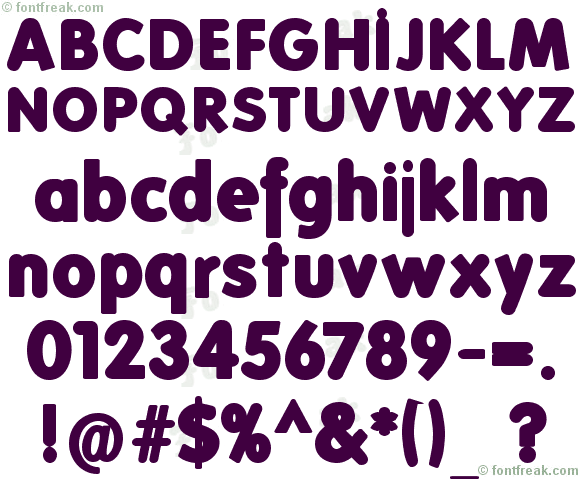
FolksBlack
About FolksBlack
FolksBlack, designed by Manfred Klein, is a striking display font that falls under the decorative category. This font showcases a bold and playful style, characterized by its thick stroke weight and rounded edges, giving it a friendly and approachable appearance. The even spacing between letters contributes to its legibility, making it an ideal choice for various design projects. The unique visual characteristics of FolksBlack, combined with its vibrant personality, make it particularly appealing for creative uses.
This font is well-suited for a range of applications, including eye-catching wedding invitations that require a touch of charm, engaging movie posters that need to convey excitement, and lively restaurant menus that draw customers in. Additionally, FolksBlack can enhance branding for small businesses seeking to establish a fun and inviting identity. Graphic designers and content creators will find this font versatile, allowing for creativity in both digital and print formats.
FolksBlack is available as freeware, making it accessible for anyone looking to elevate their design projects without the burden of licensing fees. The playful nature of this font stands out in any design, capturing attention with its bold presence while remaining easy to read. Whether you are working on a casual flyer, a modern website, or promotional materials, this font can add a distinct flair that resonates with audiences. With its unique characteristics and versatility, the FolksBlack font free download is a valuable asset for anyone looking to make a statement in their creative endeavors. Embrace the charm and personality of FolksBlack to bring your projects to life.